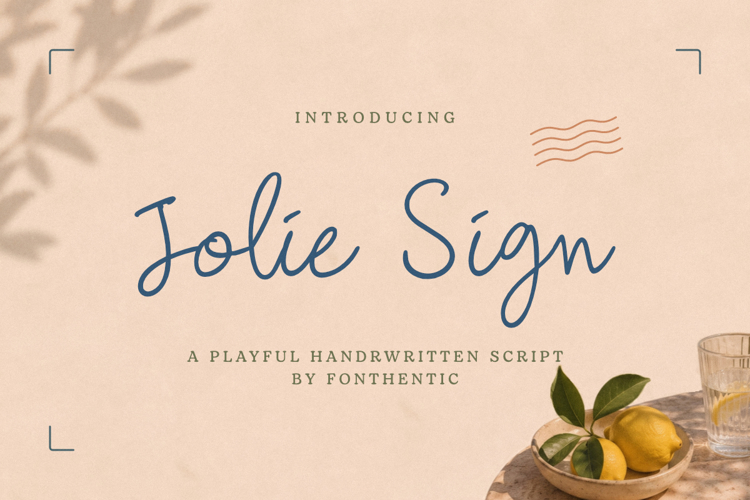
Jolie Sign Font
Jolie Sign is a playful handwritten script that captures the feeling of notes scribbled during a summer getaway. Built with lightweight monoline strokes, airy spacing, and organic letter connections, it delivers an authentic handwritten appearance that feels relaxed rather than polished. The font combines legibility with spontaneity, making every word appear naturally written by hand.